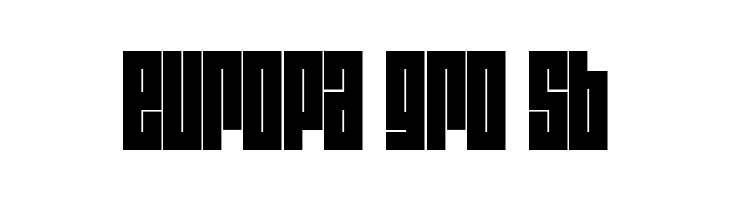
( This font are Copyrighted by Ryoichi Tsunekawa. www.dharmatype.com )
Intricate gothic-inspired decorative patterns with bold black and white contrast.
( This font are Copyrighted by Ryoichi Tsunekawa. www.dharmatype.com )
Ornate vintage dingbat and symbol set with hands, stars, borders, and faces.
( This font are Copyrighted by Ryoichi Tsunekawa. www.dharmatype.com )
A bold, modern sans-serif font with a condensed and clean design.
( Fonts by a www.fontfabric.com. Personal-use only. For commercial use please contact owner. )
A bold, modern sans-serif font with clean lines and uniform stroke widths.
( Fonts by a www.fontfabric.com. Personal-use only. For commercial use please contact owner. )
A clean, modern sans-serif font with a tall, narrow structure and consistent thin strokes.
( Fonts by a www.fontfabric.com. Personal-use only. For commercial use please contact owner. )
A thin, modern font with tall, narrow characters and a minimalist design.
( Fonts by a www.fontfabric.com. Personal-use only. For commercial use please contact owner. )
A modern, tall, and narrow sans-serif font with a clean and professional look.
( Fonts by a www.fontfabric.com. Personal-use only. For commercial use please contact owner. )
A modern, tall sans-serif font with a clean and professional appearance.
( Fonts by a www.fontfabric.com. Personal-use only. For commercial use please contact owner. )
A clean, modern sans-serif font with a light weight and tall, narrow characters.
( Fonts by a www.fontfabric.com. Personal-use only. For commercial use please contact owner. )
A bold, modern sans-serif font with clean lines and uniform stroke widths.